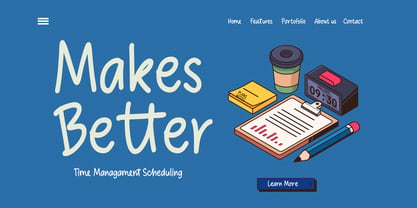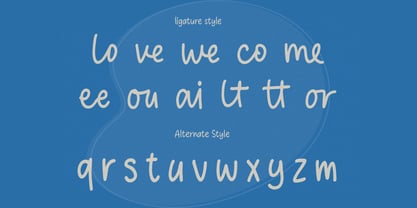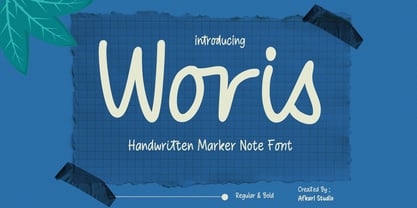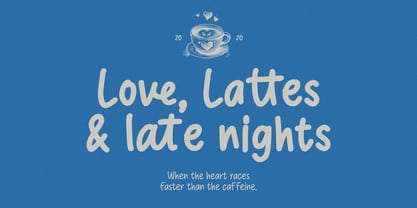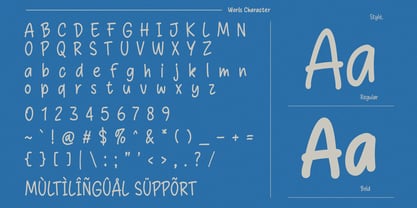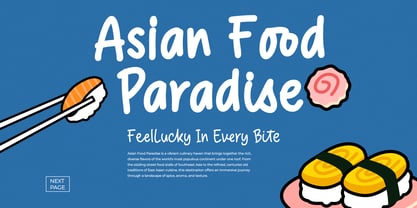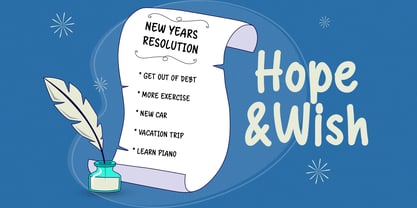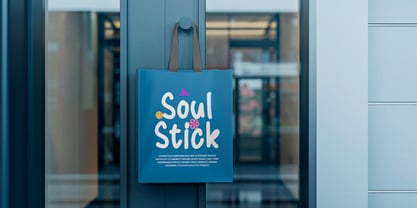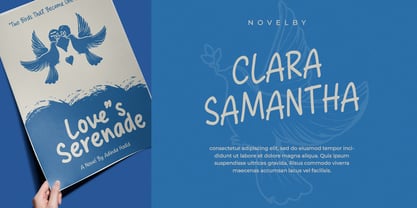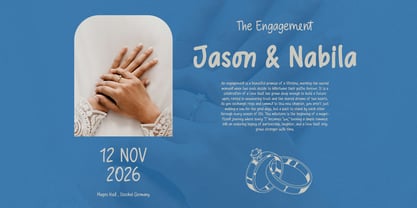
Woris
Die Schriftfamilie Woris wurde von Musthafa Kamal Emje entworfen und von Afkari Studio veröffentlicht. Woris enthält 2 Stile und Familienpaketoptionen. Mehr über diese Familie
Woris is a natural handwritten marker note font designed to capture the raw, expressive feel of quick notes and real handwriting. With its smooth strokes, slightly rough edges, and organic flow, Woris brings a warm and personal touch to any design. Inspired by everyday writing using marker pens, this font delivers an authentic and relaxed style that feels both modern and approachable. Its imperfect yet balanced letterforms create a visually engaging look while maintaining excellent readability. Highlighted Features: - Complete set of uppercase and lowercase letters, numerals, and punctuation - Alternates and Ligatures Style - Authentic handwritten marker style with natural stroke texture - Smooth, expressive, and easy-to-read letterforms - Compatible with both PC and Mac, Easy installation process - Multilingual support includes characters like ä, ö, ü, Ä, Ö, Ü, ß, ¿, and ¡ Add a natural and expressive touch to your designs with Woris—a handwritten marker font that brings warmth, personality, and authenticity to every project. Start creating designs that feel truly human and engaging today.